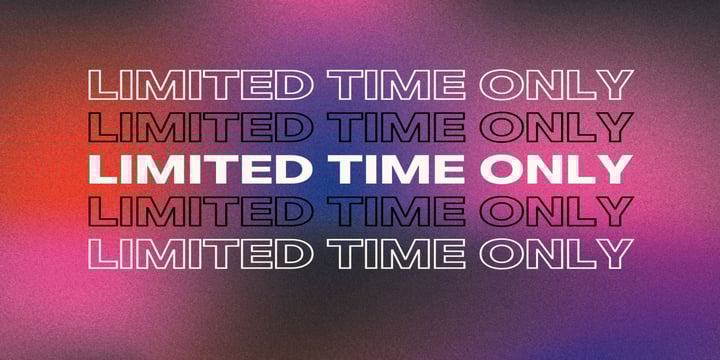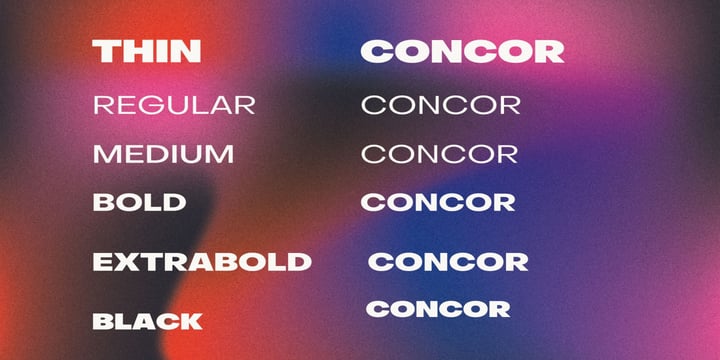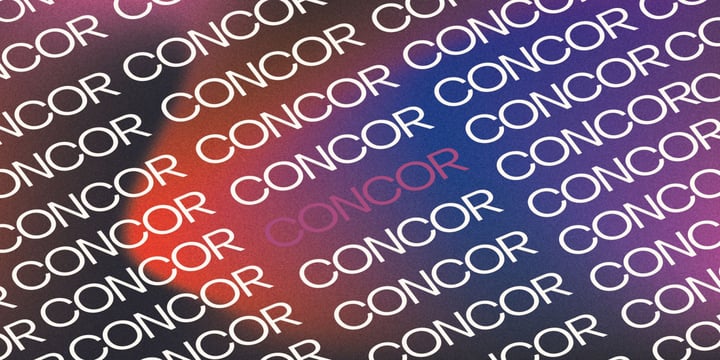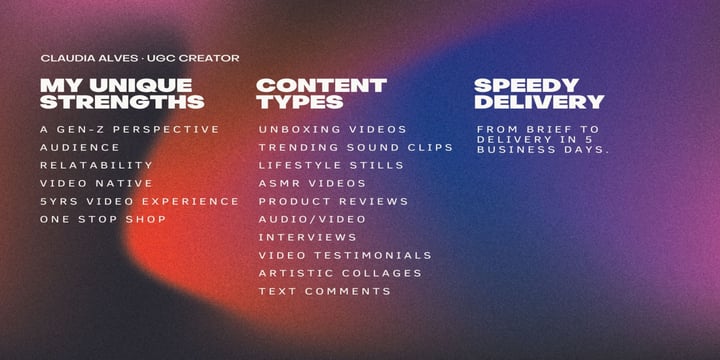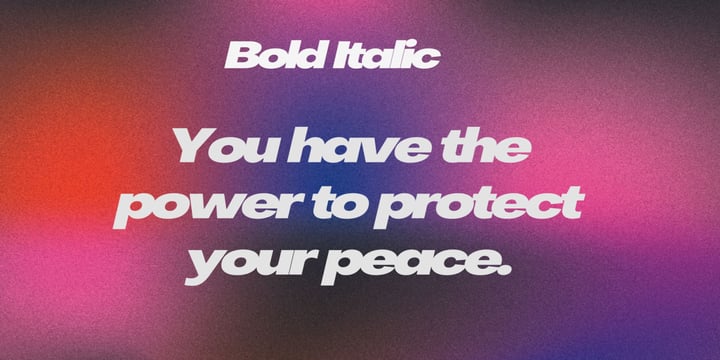
Concur Sans Serif Font Family is a contemporary type family that puts together the best qualities of Swiss neo-grotesks and geometric fonts. It’s a multifunctional workhorse designed to work best in any printed and on-screen contexts, including logo design, brand identities, websites, packaging, posters and headlines; regular weight is carefully tuned for small sized body text. Concur Sans comes in more than 10 weights, upright and slanted each